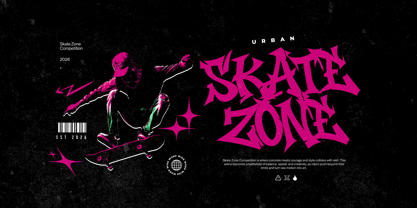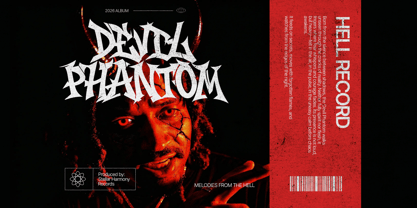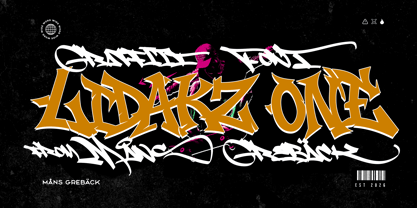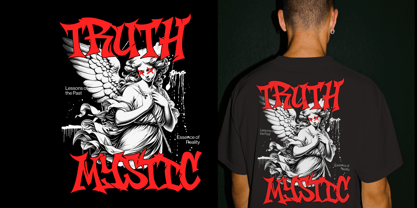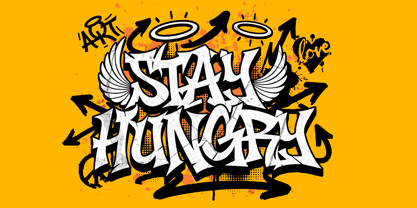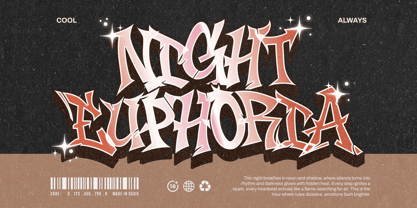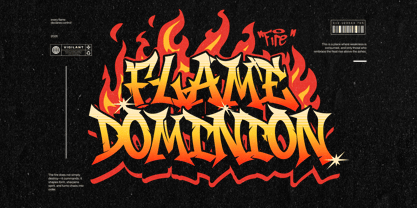
Lidakz One
por Mans Greback
La familia tipográfica Lidakz One fue diseñada por Måns Grebäck y publicada por Mans Greback. Lidakz One contiene 2 estilos y opciones de paquete familiar. Más información sobre esta familia
Lidakz One is a sharp, energetic graffiti font with a raw, hand-cut feeling. The letters are built from angular strokes with pointed terminals and uneven rhythm. It has a street edge, keeping the shapes readable while aggressive and playful. The character set carries a steady tension, as if each letter is slightly braced, giving words a compact and back-leaning presence. The font is built with advanced functionality and guaranteed top-notch quality, containing stylistic and contextual alternates, ligatures and more automatic and manual features; all to give you full control and customizability. It has extensive lingual support, covering all Latin-based languages, from North Europa to South Africa, from America to South-East Asia. It contains all characters and symbols you'll ever need, including all punctuation and numbers. Designed by Mans Greback, Lidakz One explores hard shapes and controlled chaos.
Måns Grebäck is a type designer and font creator specializing in script typography, but with a portfolio containing a vast selection of styles. Typefaces from Måns Grebäck are used as company and product logotypes, as well as headlines and in advertisement by a wide range of industries world-wide. Founded by Måns Grebäck in 2010, Mans Greback AB originally went under the name of Mawns Fonts and later Aring Typeface AB. While the foundry has its seat Örebro, Sweden, Måns also lives in Portugal. The Premium Foundry page can be viewed Here.